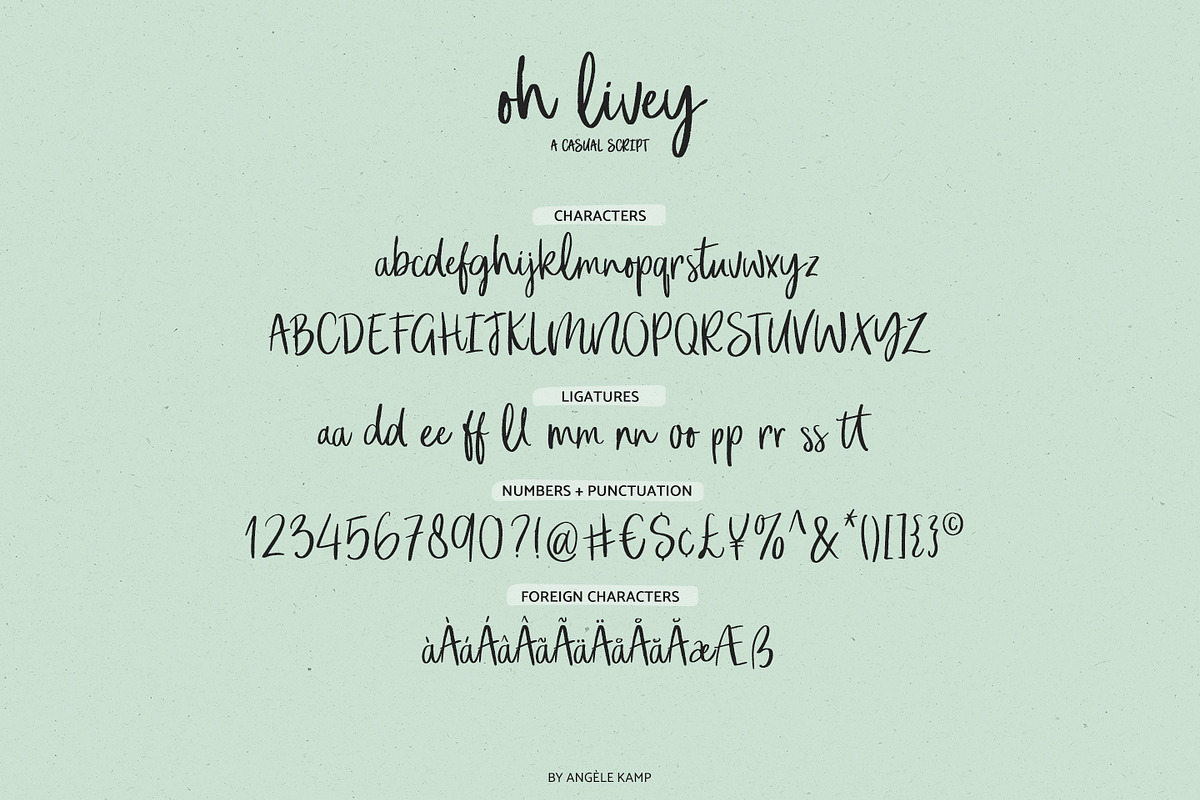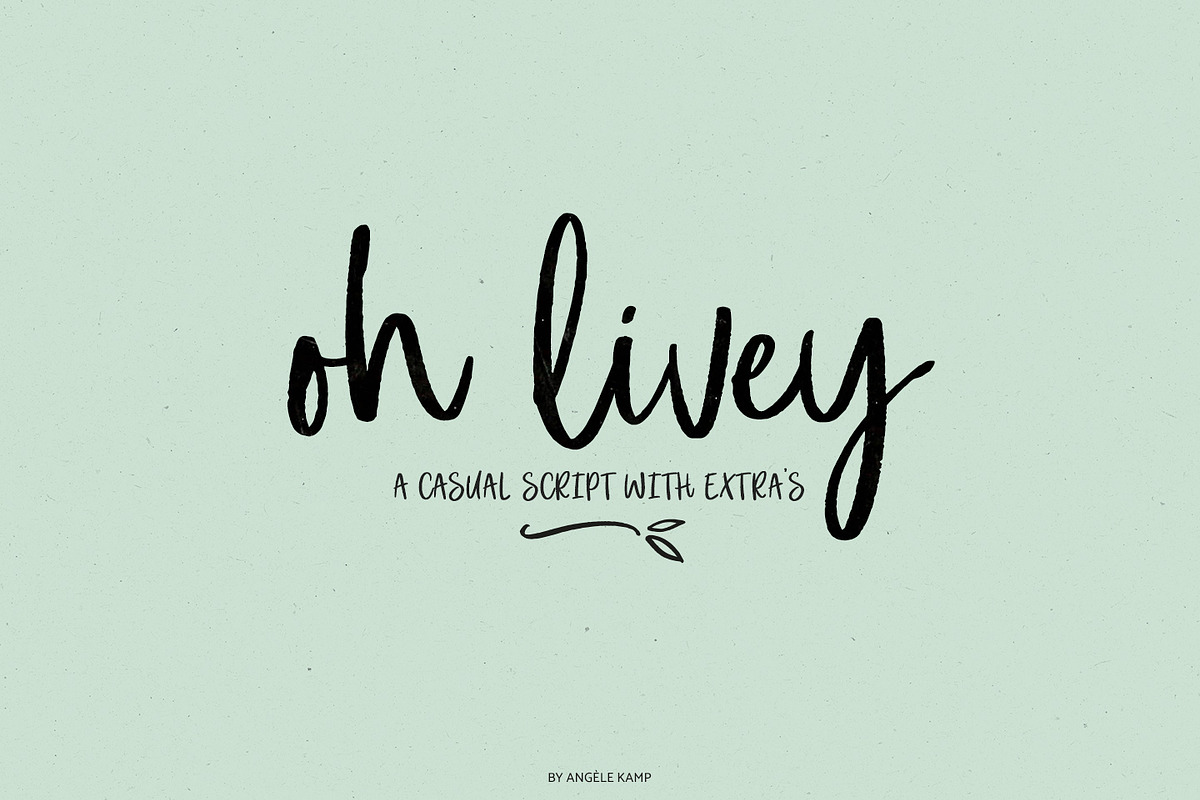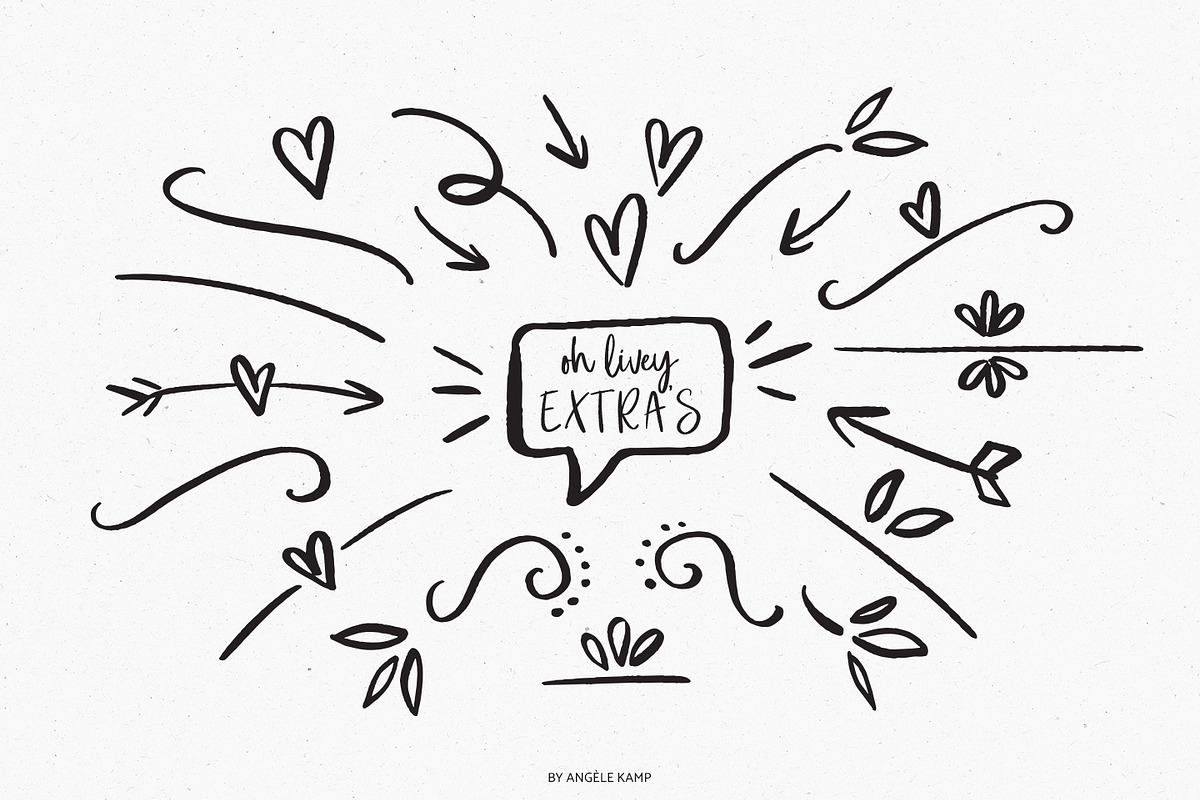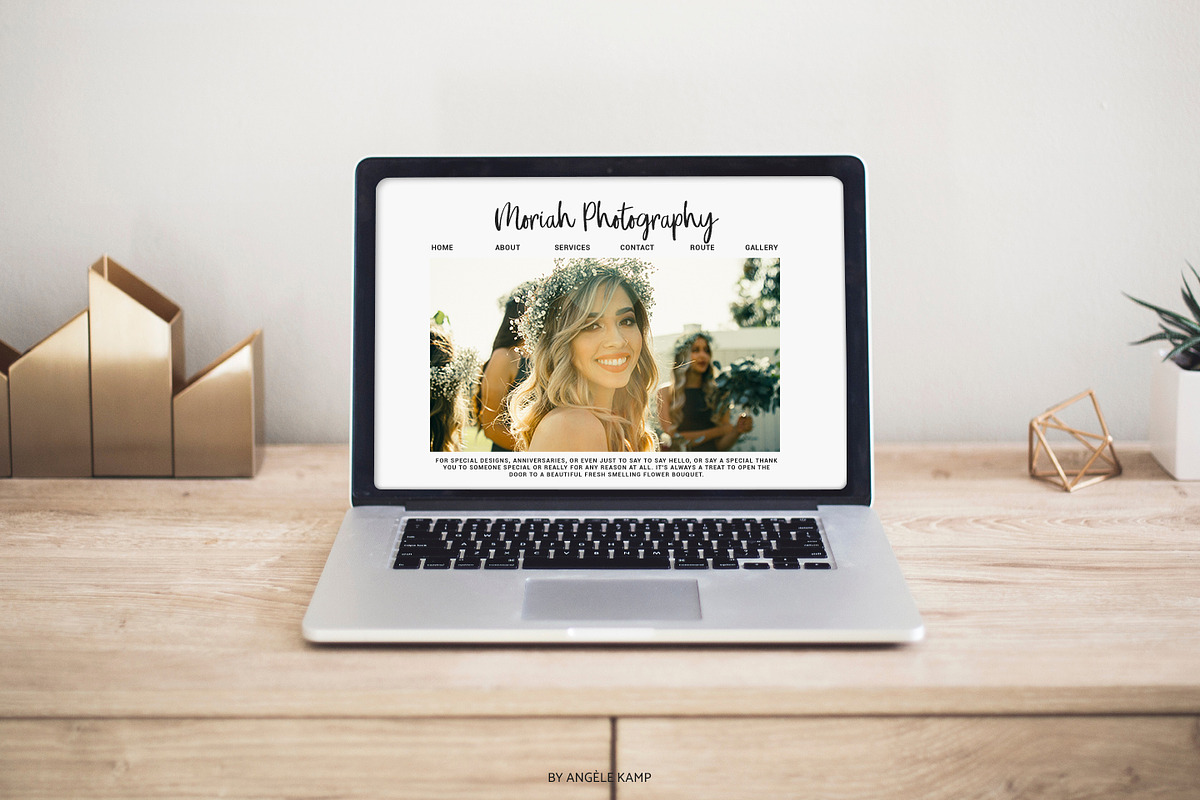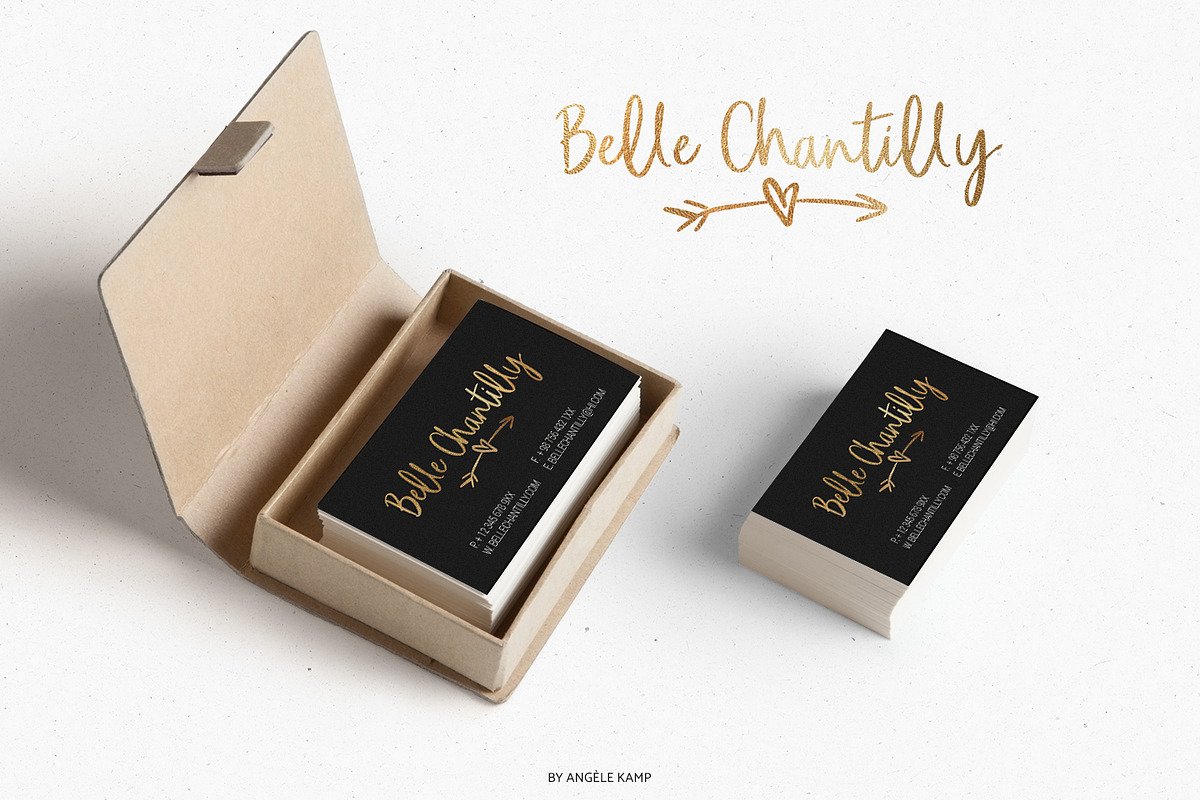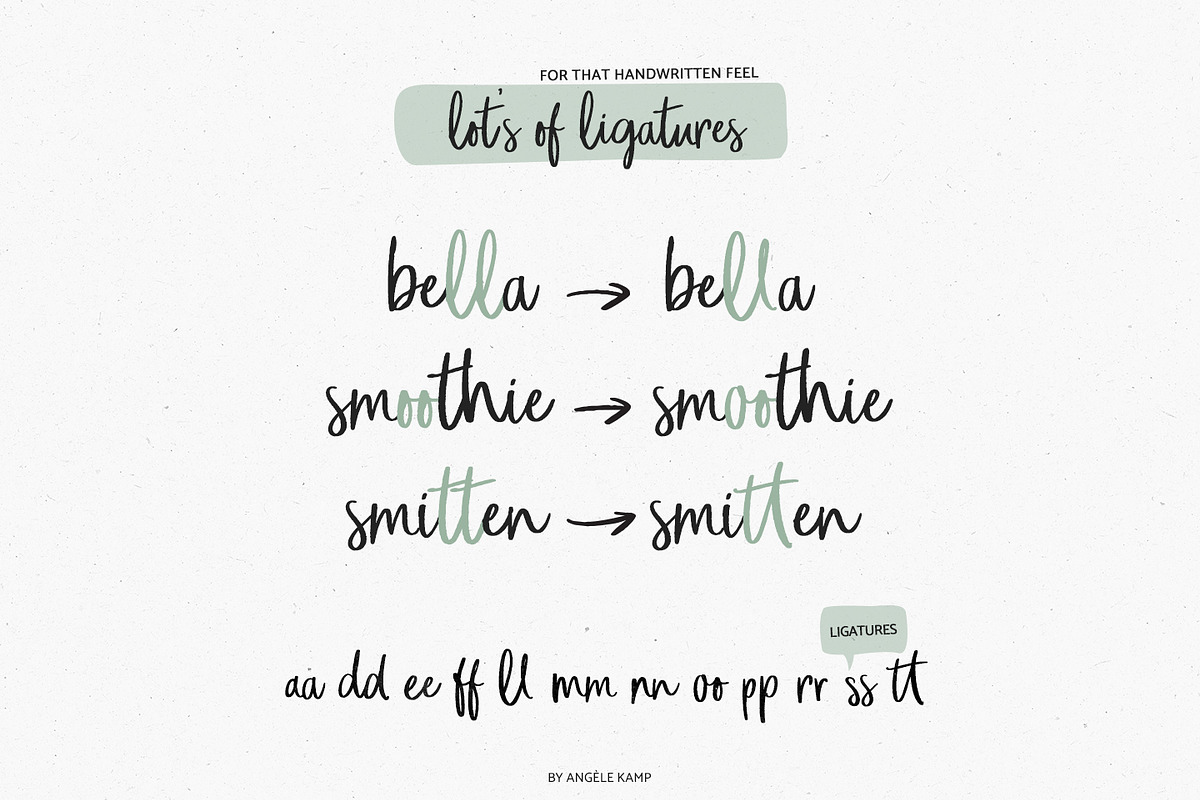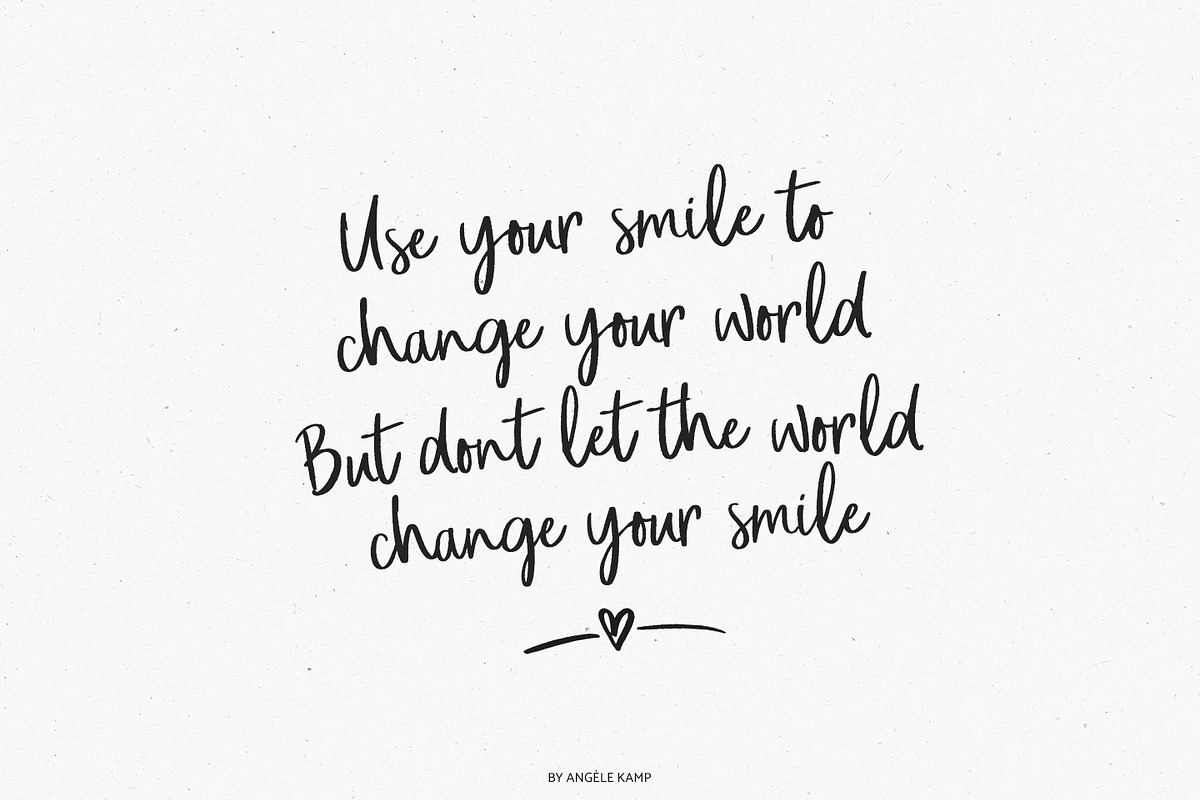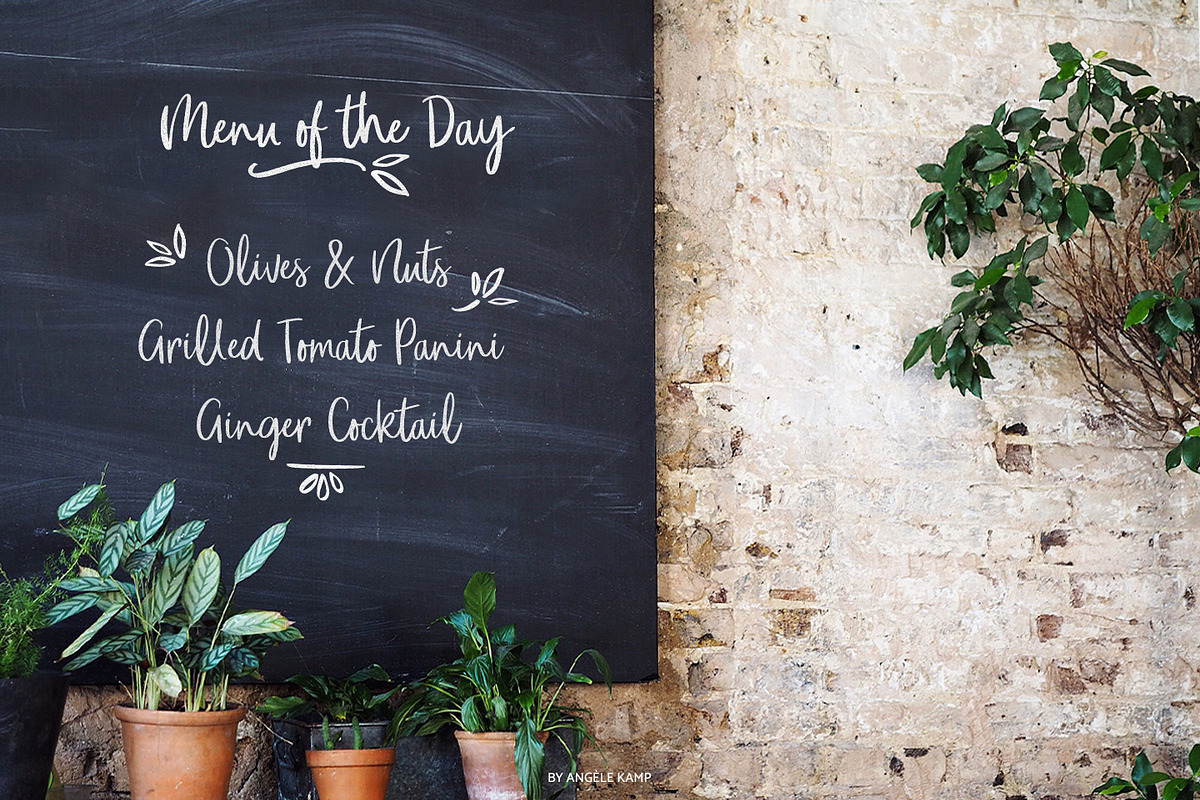
Oh Livey brush script font
Oh Livey is a brush script font that has a fun, modern vibe. Put it on everything from quotes and websites, and use the extra clipart to make designing so much easier and fun. Oh Livey contains lots of ligatures which will give it that authentic handwritten feel.
- Oh Livey contains lots of ligatures which will give it that authentic handwritten feel.